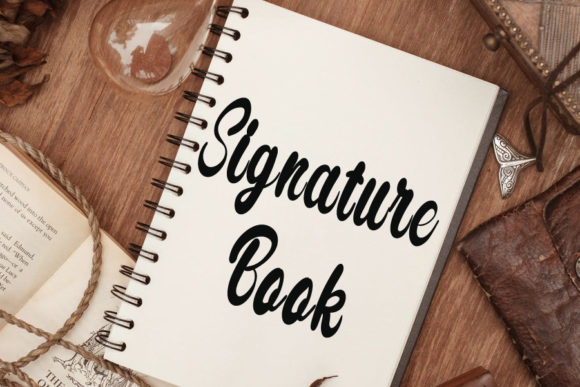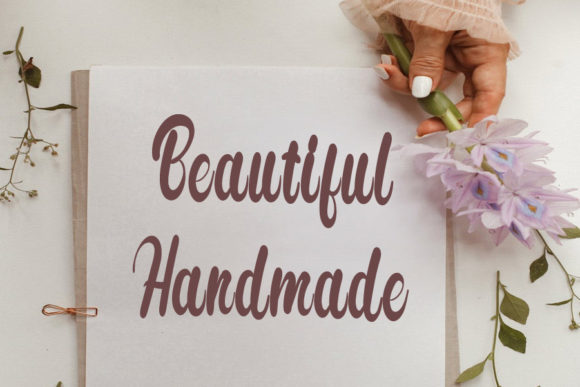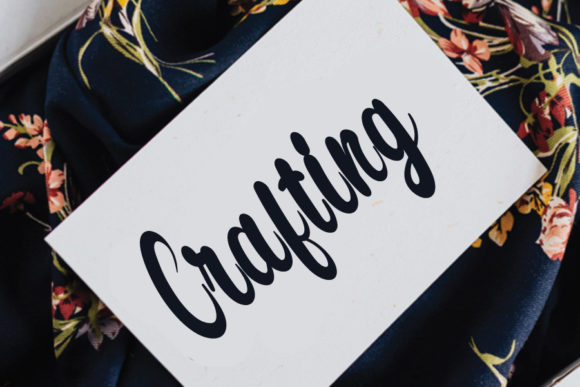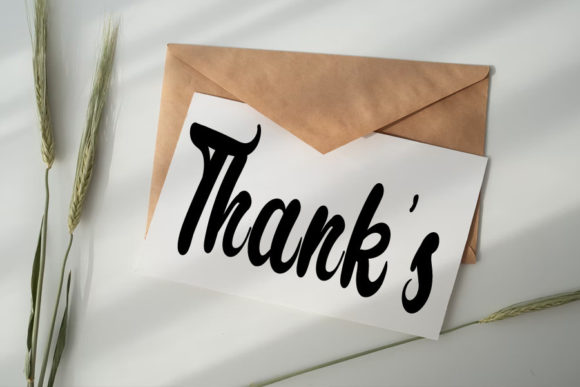
Introducing Happiness Font: Elevate Your Design with Elegance
In the world of design, fonts play a pivotal role in conveying messages, evoking emotions, and creating lasting impressions. Among the myriad of fonts available, Happiness Font stands out with its unique charm and elegance. This superb handwritten font is designed to make your work stand out through its elegant and curvy lines, perfect for a variety of creative projects.
The Essence of Happiness Font
Happiness Font is more than just a typeface; it’s an expression of joy and sophistication. Its elegant and curvy lines are meticulously crafted to add a touch of warmth and personality to any design. Whether you’re working on product packaging, branding projects, magazine covers, social media content, or wedding materials, this font is sure to elevate your work to new heights.
One of the key advantages of Happiness Font is its versatility. It’s a font that can seamlessly transition across various mediums and applications. Here are some of the areas where Happiness Font truly shines:
• Product Packaging: Make your products stand out on the shelves with elegant packaging designs.
• Branding Projects: Create a memorable brand identity with a font that exudes elegance and sophistication.
• Magazine Covers: Attract readers with eye-catching cover designs that reflect the quality of your content.
• Social Media: Elevate your social media presence with stylish and engaging posts.
• Wedding: Add a touch of romance and elegance to wedding invitations, cards, and decor.
Why Choose Happiness Font?
With so many fonts available, why should Happiness Font be your go-to choice? Here are a few compelling reasons:
• Unique and Memorable: Its distinctive curvy lines ensure that your work doesn’t get lost in the crowd.
• Emotional Connection: The elegance and warmth of the font help create an emotional connection with your audience.
• Easy to Read: Despite its elegant nature, Happiness Font remains highly legible, making it perfect for both headings and body text.
• Highly Versatile: It can be used in a wide range of projects, from digital content to print materials.
Tips for Using Happiness Font Effectively
To make the most of Happiness Font, consider the following tips:
• Pair it with Simplicity: Let the font be the centerpiece by pairing it with simple backgrounds or minimalistic design elements.
• Experiment with Sizes: Play with different sizes to create visual hierarchy and emphasize key messages.
• Color Matters: Choose colors that complement the elegance of the font, such as pastels, neutrals, or rich jewel tones.
• Consistency is Key: Use Happiness Font consistently across your project to create a cohesive and professional look.
Font Name Happiness Font
Author ABBAsalam
Happiness Font is more than just a typeface; it’s a design element that can transform your work into something truly special. Its elegant and curvy lines offer a perfect blend of sophistication and warmth, making it an ideal choice for designers and crafters looking to make an impact. Whether you’re creating product packaging, branding projects, or social media content, Happiness Font is sure to bring a touch of happiness and elegance to your designs.
So why wait? Embrace the elegance and versatility of Happiness Font and let your designs speak volumes about your creativity and attention to detail.